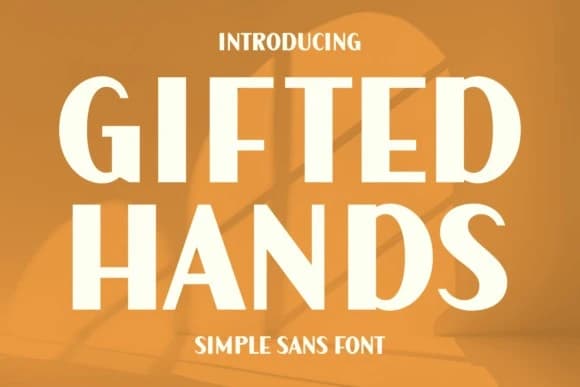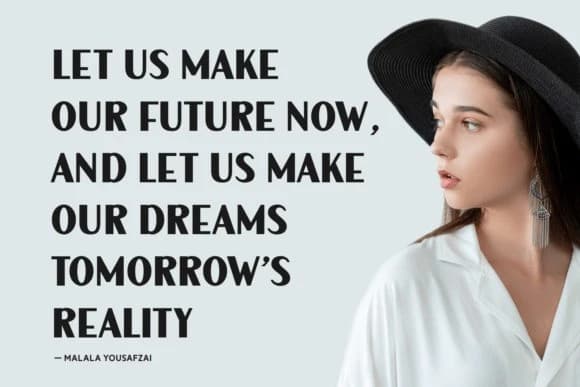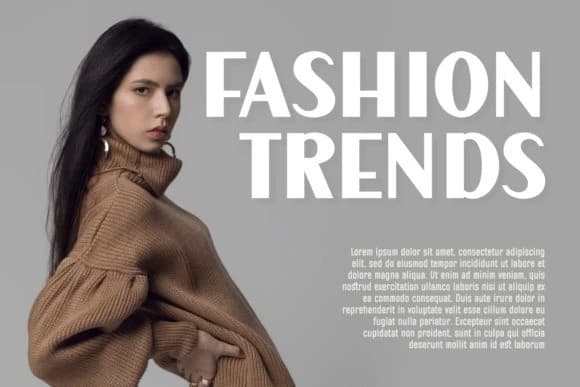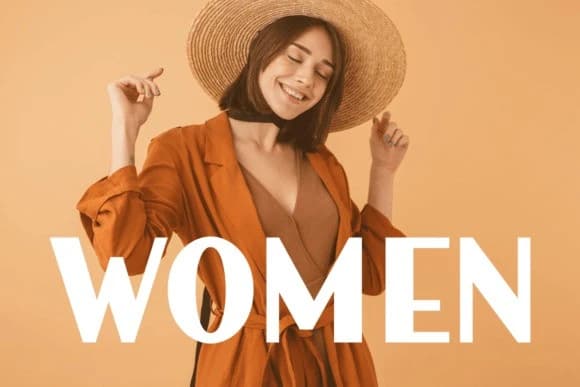
Gifted Hands Font
Gifted Hands Font, a stunning Sans Serif choice that stands out with its elegant and contemporary appeal. Perfectly suited for photography accents, the font ensures your design’s authenticity stands out.